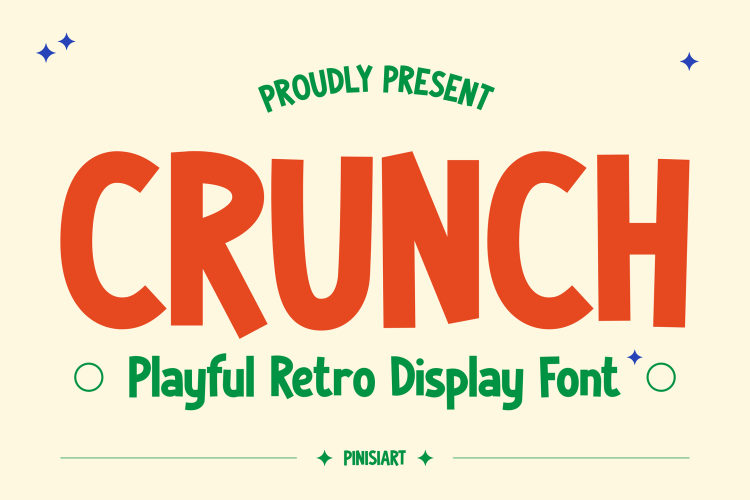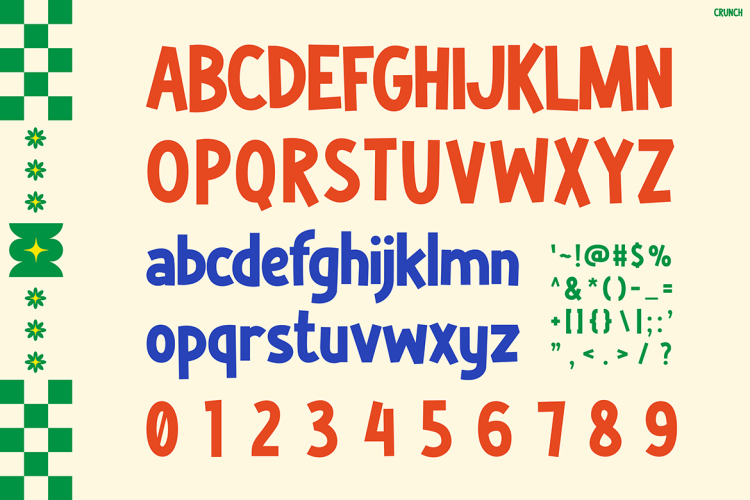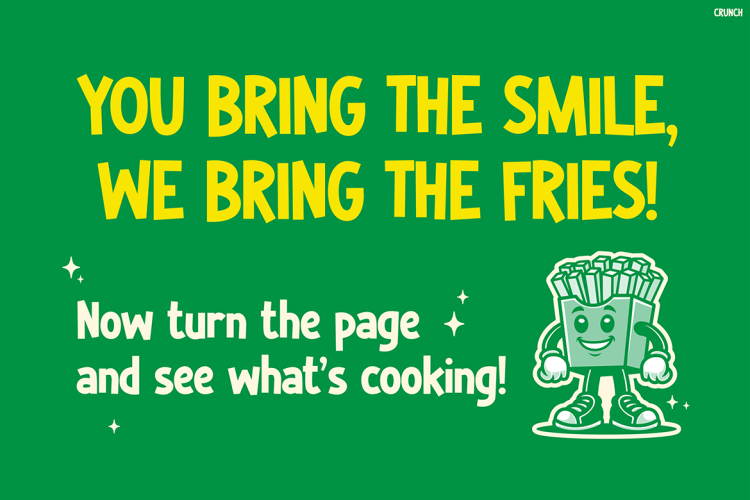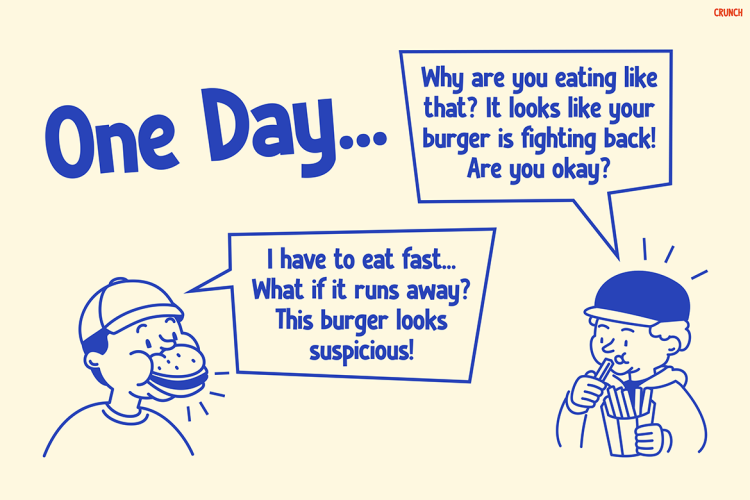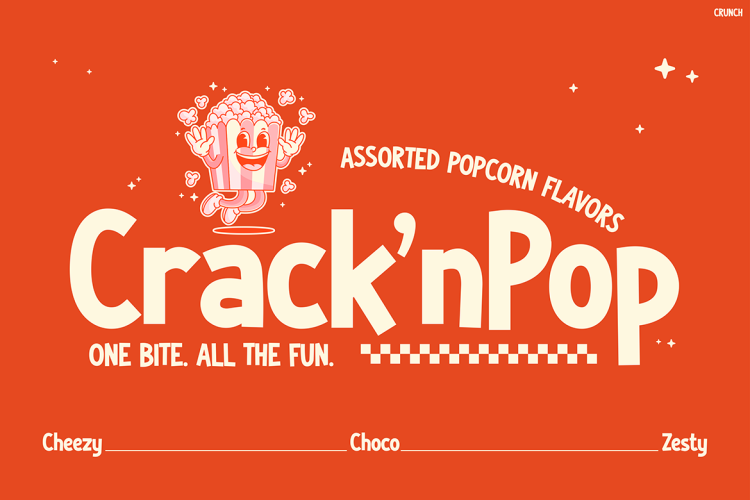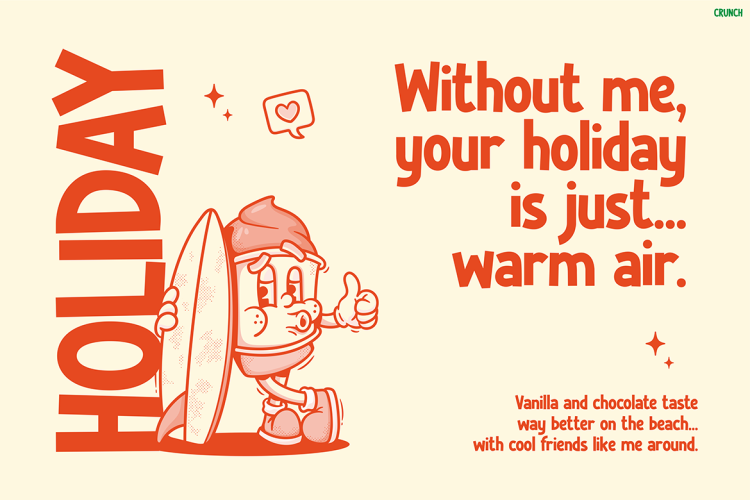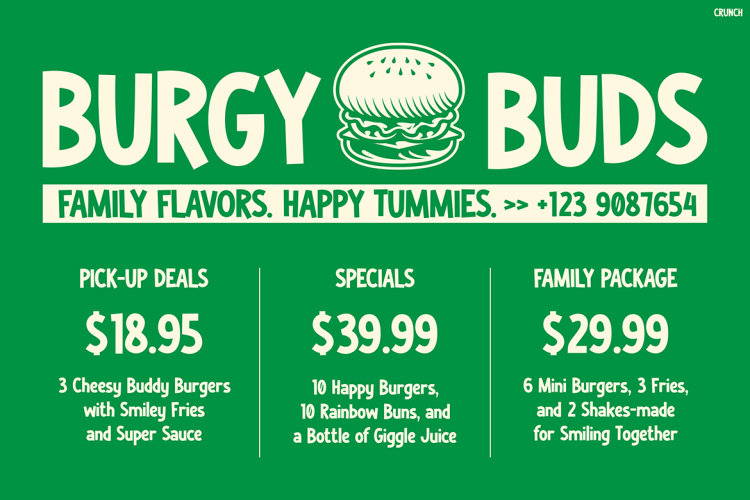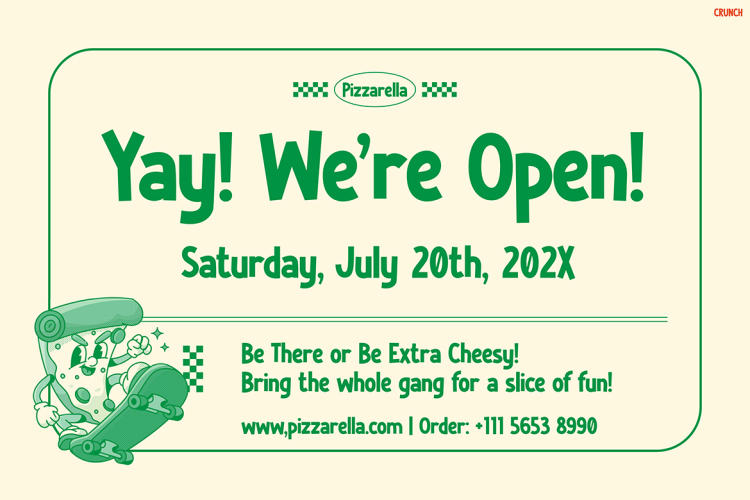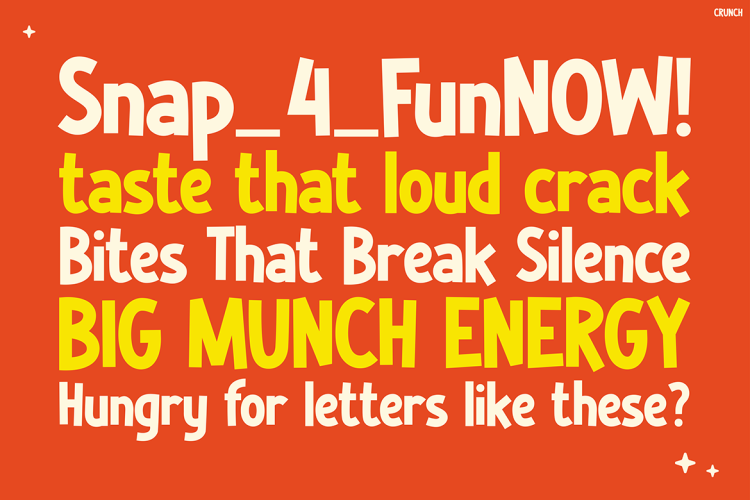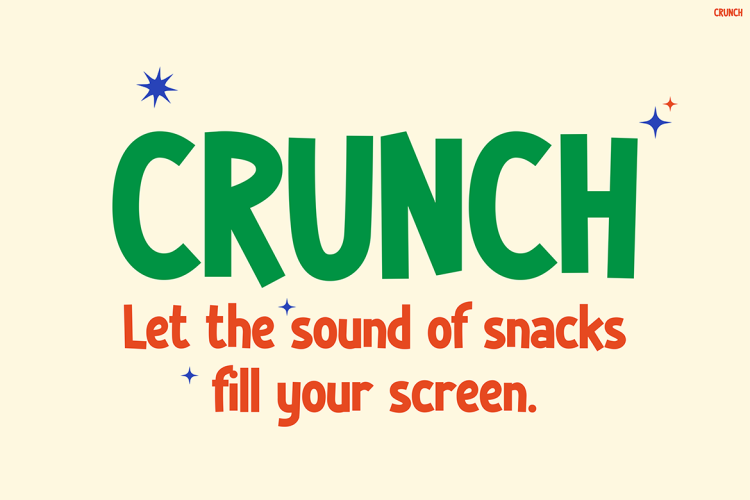
Kids Font CRUNCH โ A Playful Retro Typeface That Pops with Personality!
Kids Font CRUNCH is a bold, cheerful typeface designed to bring retro joy into your modern-day designs. With thick, rounded edges and a high-contrast look, it adds instant energy while staying warm and friendly. Inspired by classic snack packaging, old-school diner signage, and cartoon titles, it creates an engaging vibe that feels nostalgic yet fresh.
Because of its chunky letterforms, this font stands out clearly in both uppercase and lowercase use. Itโs great for attention-grabbing headlines, but it also performs well in short playful texts. Plus, its quirky style makes it an excellent choice for creative, kid-friendly designs that need both fun and clarity.
From the previews, you can see how Kids Font CRUNCH adapts beautifully across various themesโranging from comic-style conversations to holiday posters and food branding. Itโs vibrant, expressive, and easy to apply across print or digital projects alike.
Perfect For:
Kids Font CRUNCH is ideal for:
Children’s books, posters, and educational visuals
Kidsโ menus, food product labels, and playful packaging
Comic strips, YouTube thumbnails, and fun social media graphics
Party invitations, signage, and event materials
Retro branding, logo work, and merchandise designs
Whether youโre a teacher, illustrator, content creator, or brand designer, this font helps you bring fun to your message. Itโs also highly versatileโso you can use it for multiple formats without losing consistency or charm.
Add Some Crunch to Your Design!
If you’re searching for a font thatโs full of character and functionality,ย CRUNCH is a top choice. Not only is it fun and loud, but itโs also clear, approachable, and full of personality. So, why settle for boring fonts when you can stand out?